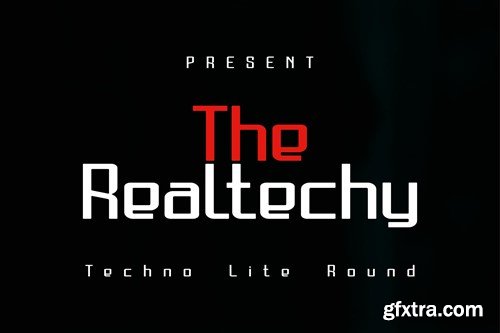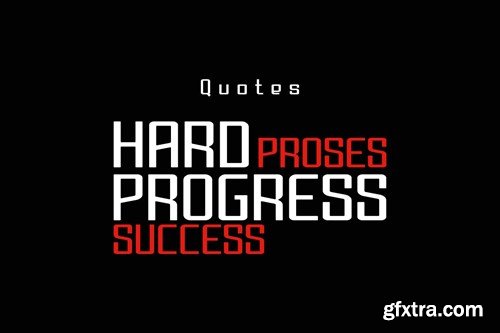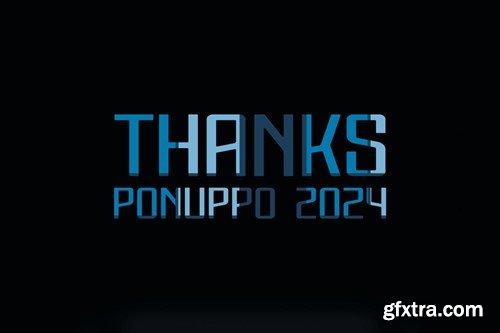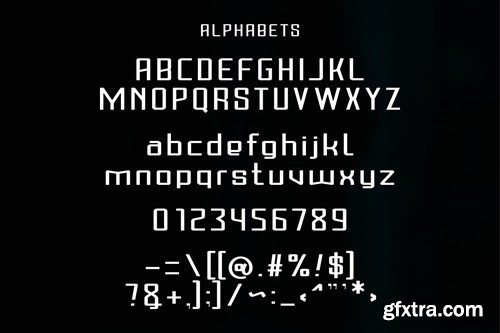
Realtechy Font 5KMU8UE
The Realtechy Font
Introducing the most recent addition to the font world - Font Yang, a techno-inspired design boasting sleek edges and a slim silhouette. Specifically crafted for a broad spectrum of technology needs, its gently softened tips make it versatile and visually appealing. Font Yang's modern and streamlined character makes it a standout choice for any tech-savvy enthusiast. Its unique design seamlessly marries the worlds of art and technology, making it an ideal font for anyone in the digital tech sphere. available in .OTF & .TTF Formats.